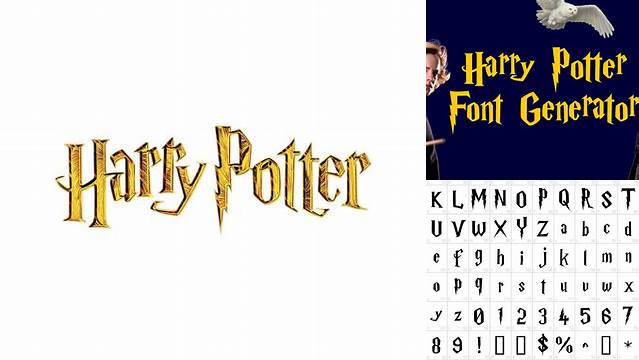
Harry Potter Font Generator: Your Wizarding Text Tool
Are you a die-hard Harry Potter fan? Do you dream of receiving your acceptance letter to Hogwarts or casting spells with your very own wand? Well, even if you can't actually attend Hogwarts, you can still immerse yourself in the wizarding world with the Harry Potter Font Generator! This tool allows you to transform ordinary text into the iconic font used in the Harry Potter books and films.
What is the Harry Potter Font?
The Harry Potter font, primarily known as 'Harry P', isn't just any typeface; it's a visual gateway to a world of magic, mystery, and adventure. The font embodies the very essence of the series. The font is characterized by its whimsical, slightly irregular letterforms, evoking a sense of old-world charm and arcane knowledge. Think about it: the font is the first thing you see on the book covers, instantly transporting you to Hogwarts and beyond. Its unique style sets the tone for the entire reading experience, signaling that you're about to enter a realm where anything is possible. Using this font isn't just about aesthetics; it's about connecting with the spirit of the stories. It’s about feeling that spark of magic that J.K. Rowling ignited in all of us. Imagine using it for party invitations, fan fiction titles, or even personalized gifts. The possibilities are as endless as the spells in a wizard's repertoire. This font isn't just a collection of letters; it's a symbol, a feeling, a connection to a universe that has captured the hearts of millions. So, go ahead, embrace the magic and let your creativity soar with the Harry Potter font!
Why Use a Harry Potter Font Generator?
Why should you even bother with a Harry Potter font generator, you ask? Well, firstly, it's incredibly fun! But beyond that, there are tons of practical and creative reasons to use one. Imagine creating personalized birthday cards for your Potterhead friends, designing eye-catching posters for your Harry Potter-themed party, or even adding a touch of magic to your social media posts. A font generator makes all of this super easy, without needing any fancy design skills. Secondly, it allows you to maintain consistency. If you're working on a project that needs to look authentically Harry Potter, using the correct font is crucial. A generator ensures that you're using a font that closely resembles the one used in the original books and movies, giving your project that professional, polished look. Thirdly, it saves you time. Hunting down the correct font and installing it on your computer can be a hassle. A font generator lets you skip all of that and create your desired text instantly. You can experiment with different phrases and styles until you find the perfect fit for your project. Moreover, using a Harry Potter font generator is a fantastic way to express your love for the series and connect with other fans. It's a subtle yet powerful way to show your appreciation for the magical world that J.K. Rowling created. So, whether you're a seasoned graphic designer or just a casual fan, a Harry Potter font generator is a valuable tool for bringing a little bit of magic into your everyday life.
How to Use a Harry Potter Font Generator
Okay, so you're convinced that a Harry Potter font generator is the bee's knees. But how do you actually use one? Don't worry, it's easier than brewing a potion! Most generators have a pretty straightforward interface. You'll usually find a text box where you can type in whatever you want to transform into the Harry Potter font. This could be anything from your name to a quote from the books to a spell you want to practice. Once you've typed in your text, the generator will usually give you a preview of what it looks like in the Harry Potter font. Some generators offer different variations or styles, so you can tweak the appearance to your liking. You might be able to adjust the size, color, or add special effects. When you're happy with the result, you can usually download the text as an image or copy it to your clipboard to paste elsewhere. The specific steps might vary slightly depending on the generator you're using, but the basic process is generally the same. Just type, preview, and download or copy! Some generators might also offer additional features, such as the ability to create logos or banners. These can be particularly useful if you're planning a Harry Potter-themed event or creating content for your fan website. Remember to check the terms of use of the generator to make sure you're allowed to use the generated text for your intended purpose. With a little bit of experimentation, you'll be creating magical text in no time!
Where to Find a Harry Potter Font Generator
Alright, you're itching to find a Harry Potter font generator. So, where do you look? The good news is, they're all over the internet! A quick search on Google, Bing, or your favorite search engine for "Harry Potter font generator" will bring up a bunch of options. But be careful! Not all generators are created equal. Some might be riddled with ads, while others might not produce a font that's very accurate. Look for generators that have a clean, easy-to-use interface and offer a good preview of the font. It's also a good idea to read reviews or check ratings before using a generator, to make sure it's reliable and safe. Some popular online resources offer font generators, and you can often find recommendations on Harry Potter fan forums or social media groups. Another option is to look for font generators that are specifically designed for creating Harry Potter-themed graphics or logos. These might offer more advanced features and customization options. When choosing a generator, consider what you'll be using the font for. If you just need to create a few lines of text for a social media post, a simple generator will probably suffice. But if you're working on a larger project, you might want to choose a generator with more features and options. And always, always make sure the website you're using is reputable and secure, to protect your personal information and prevent malware.
Tips for Using the Harry Potter Font Effectively
Now that you've got your hands on a Harry Potter font generator, let's talk about using it effectively. Slapping the font on everything you see isn't always the best approach. Consider the context. The Harry Potter font is great for headings, titles, and short phrases, but it can be difficult to read in large blocks of text. Think about where you're using the font and whether it's appropriate for the overall design. Pay attention to spacing. The Harry Potter font can sometimes look a little crowded, so adjust the letter spacing and line height to improve readability. A little extra space can make a big difference. Choose colors wisely. While the classic Harry Potter font is black, you can experiment with other colors to create different effects. Gold, red, and green can all work well, depending on the project. But avoid colors that are too bright or distracting. Combine it with other fonts. The Harry Potter font can be really effective when paired with a simpler, more modern font. This can create a nice contrast and make your design more visually appealing. For example, you could use the Harry Potter font for the heading and a sans-serif font for the body text. Don't overdo it. A little bit of Harry Potter font can go a long way. Using it too much can make your design look cluttered and overwhelming. Use it sparingly to create emphasis and add a touch of magic. Be consistent. If you're using the Harry Potter font in multiple places, make sure you're using it consistently. This will help to create a cohesive and professional look. By following these tips, you can use the Harry Potter font to create stunning designs that capture the magic of the wizarding world.
Examples of Harry Potter Font in Action
To give you some inspiration, let's look at some examples of how the Harry Potter font can be used in real-world applications. Invitations: Imagine a birthday party invitation written in the Harry Potter font, inviting guests to celebrate with "Potions, Spells, and a Magical Feast!" The font immediately sets the tone for a fun and enchanting event. Posters: A poster advertising a Harry Potter movie night, with the title emblazoned in the iconic font, instantly grabs the attention of fans. Add some imagery of Hogwarts or the characters, and you've got a visually compelling advertisement. Social Media Graphics: Create eye-catching social media graphics for your Harry Potter fan page, using the font to highlight key messages or quotes from the books. This can help to increase engagement and attract new followers. Personalized Gifts: Personalize gifts for your Potterhead friends with their names or favorite quotes written in the Harry Potter font. This adds a special touch and shows that you put thought into the gift. Fan Fiction: Use the font to create a title page for your Harry Potter fan fiction, giving it a professional and authentic look. This can help to draw readers in and make your story stand out. Websites: Incorporate the font into the design of your Harry Potter fan website, using it for headings, titles, and logos. This can help to create a cohesive and immersive experience for visitors. Logos: Design a logo for your Harry Potter-themed business or organization, using the font to convey a sense of magic and wonder. This can help to establish your brand identity and attract customers. These are just a few examples, and the possibilities are endless. With a little bit of creativity, you can use the Harry Potter font to create all sorts of magical and memorable designs.
Conclusion: Embrace the Magic
In conclusion, the Harry Potter font generator is a fantastic tool for any Harry Potter fan looking to add a touch of magic to their creative projects. Whether you're designing invitations, creating social media graphics, or writing fan fiction, the iconic font can help you to capture the spirit of the wizarding world. So, go ahead and embrace the magic! Experiment with different styles, colors, and combinations to create designs that are truly unique and captivating. And remember, the only limit is your imagination. With a little bit of creativity and the help of a Harry Potter font generator, you can bring the magic of Hogwarts to life in your everyday life. Now, go forth and create something magical!